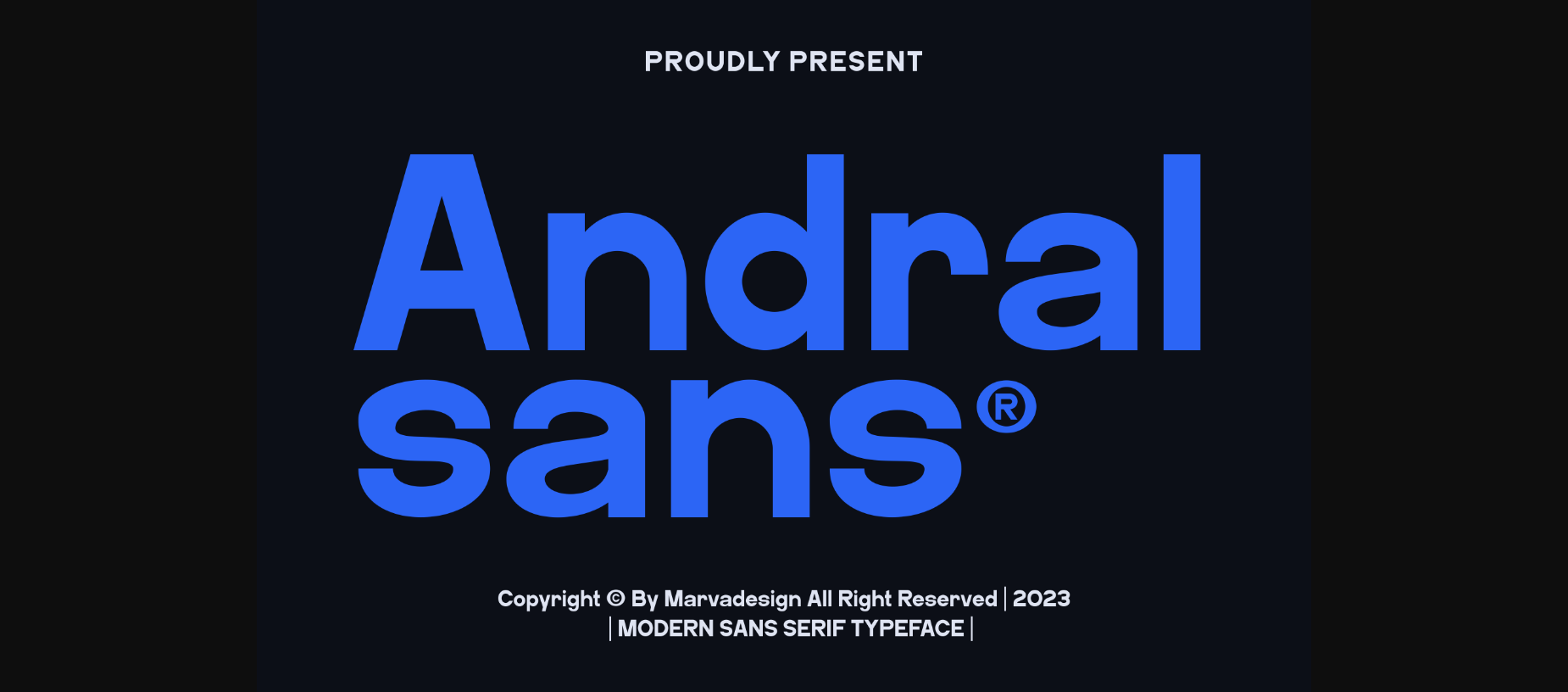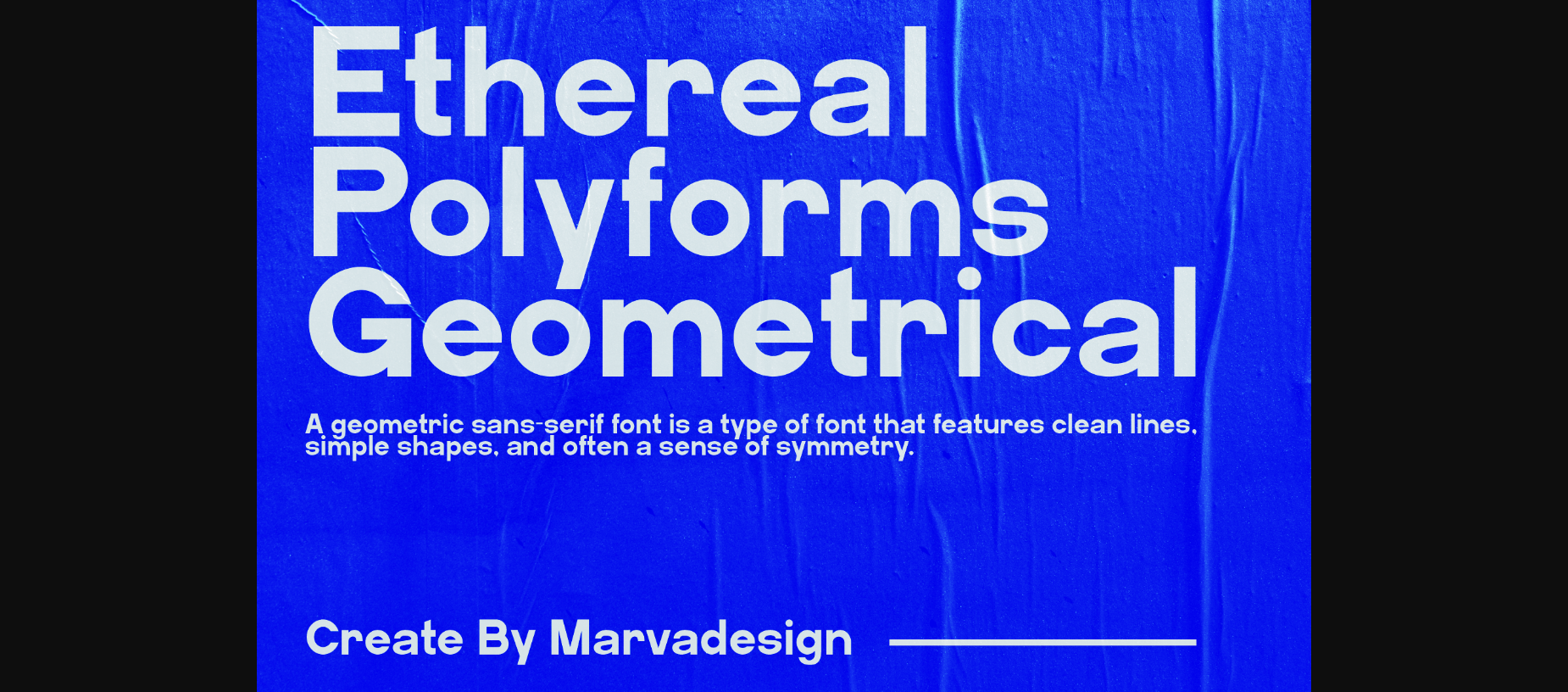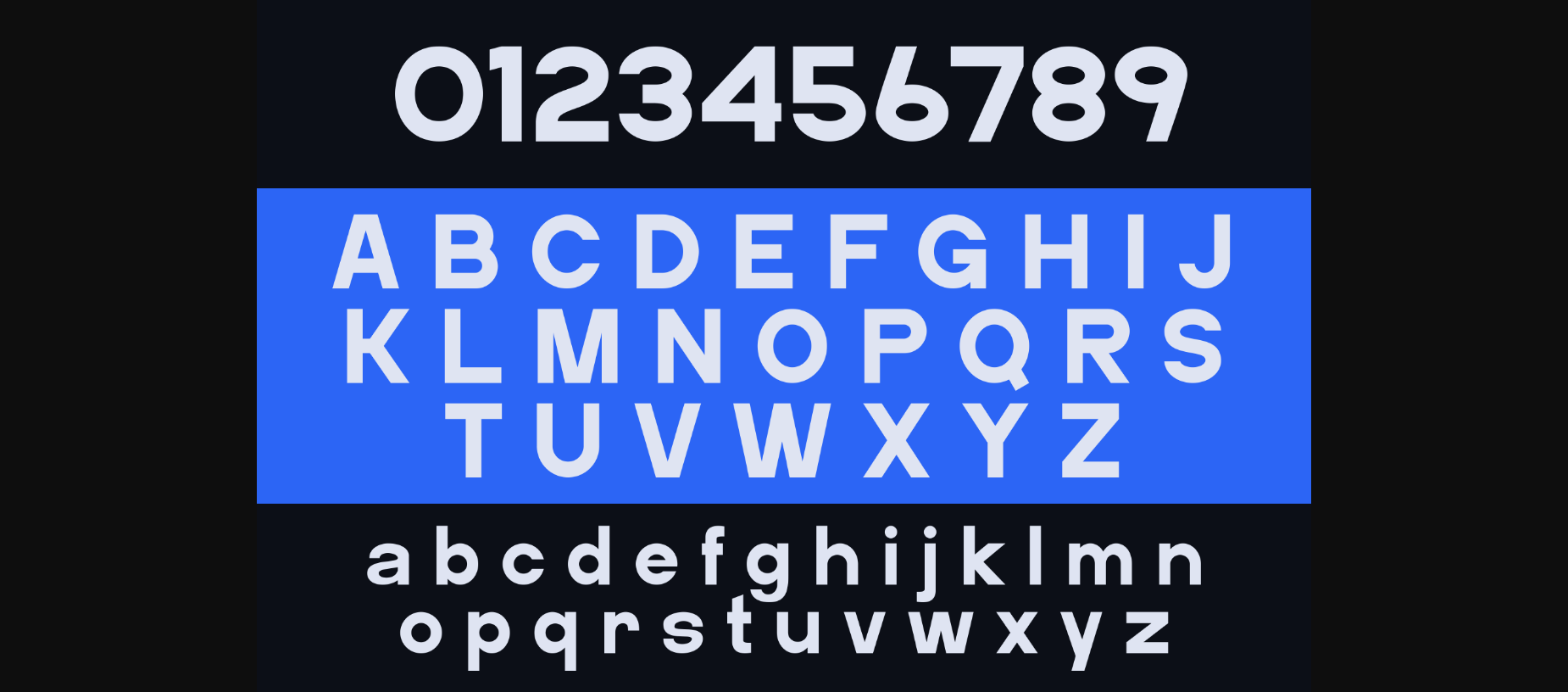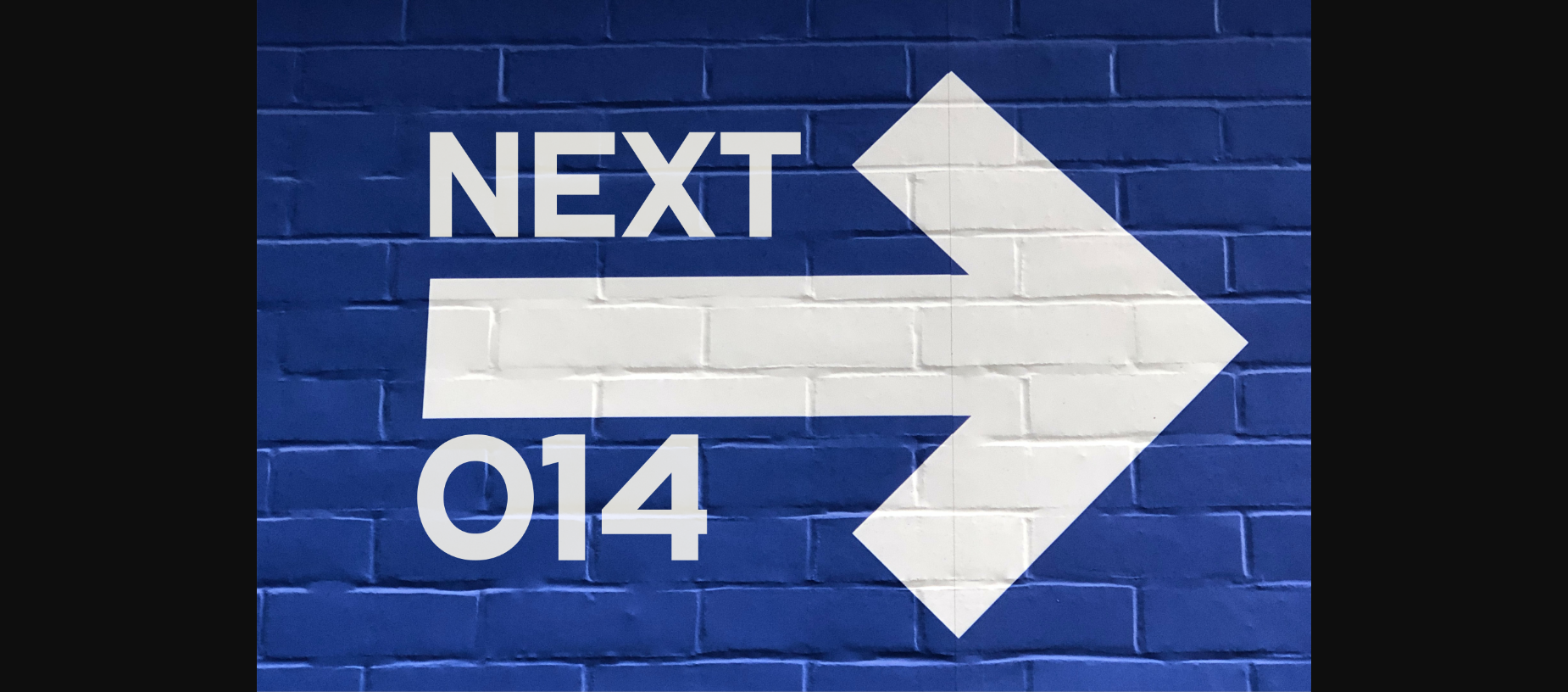
About Andral Font
Andral – a Modern Sans Serif font – brings a fresh, contemporary feel to your designs. Its clean lines and sleek look make it perfect for any project. Whether you’re creating a website, designing a logo, or crafting a poster, Andral adds a touch of modernity and professionalism.